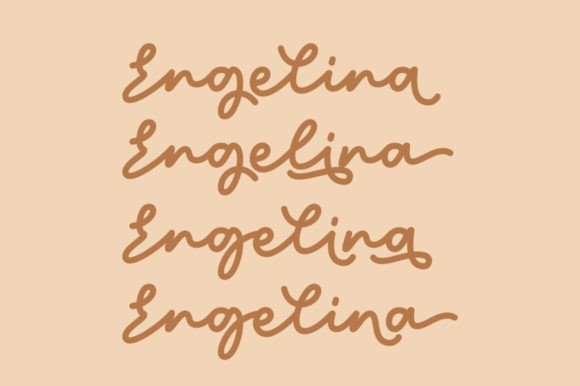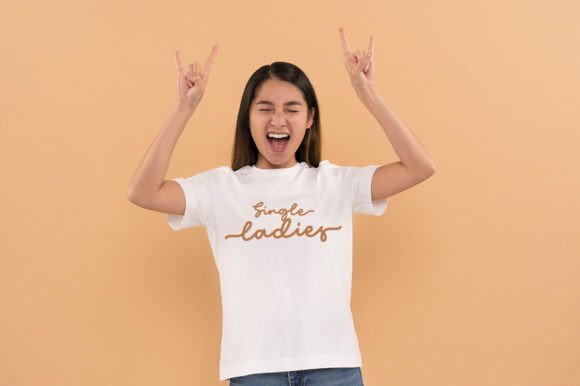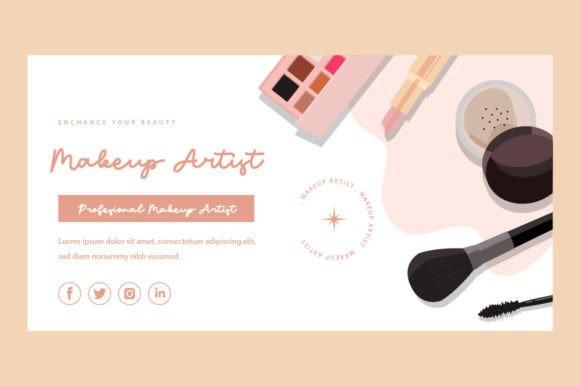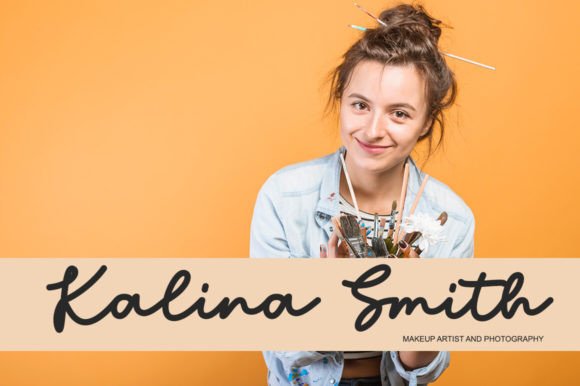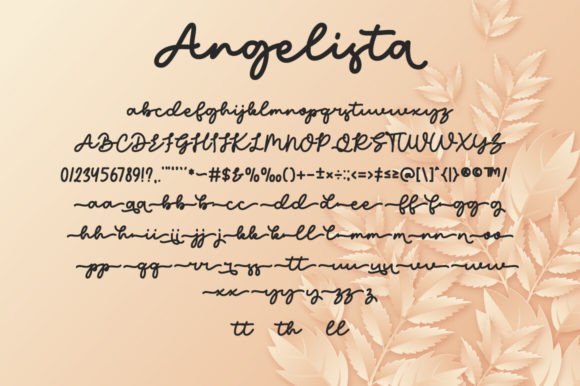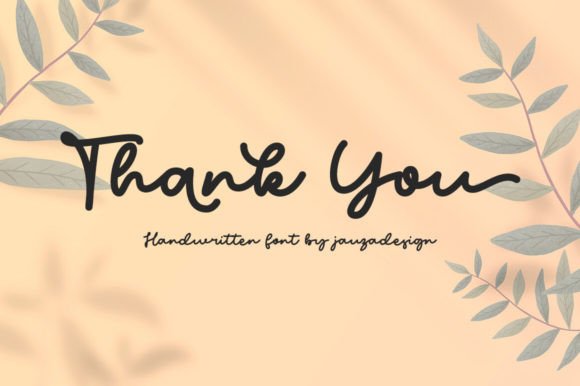
Unleashing the Charm of Angelista Font
There’s something magical about scribbling down ideas on a worn notebook, the pen gliding effortlessly across the page as creativity flows. It’s moments like these that remind us of the beauty of handwritten fonts, and Angelista Font is no exception. This delightful, friendly script is perfect for adding a personal touch to your designs.
Angelista Font is a versatile, natural, and unique handwritten font that’s tailor-made for a wide range of designs. Whether you’re working on style quotes, wedding cards, magazines, or fashion branding, Angelista’s charm is sure to captivate your audience. Its ease of use, thanks to PUA encoding, makes it a valuable asset for designers looking to add a touch of elegance to their work.
- Unique Characteristics: Angelista Font features elegant, cursive script with refined details and subtle flourishes, making it perfect for formal invitations, wedding stationery, and other high-end designs.
- Stylistic Sets: Angelista Font includes multiple stylistic sets, allowing designers to experiment with different styles and create unique, custom designs.
- The font’s elegant and refined design makes it perfect for luxury or high-end branding.
- The script style adds a touch of sophistication and can be used for wedding invitations, certificates, or other special occasions.
- The font is highly legible, making it easy to read even in smaller sizes.
- The font may be too ornate for some designs, making it difficult to read or use as a body text font.
- The script style can be challenging to use for long blocks of text, as it may become difficult to read.
- The font is not as versatile as some other script fonts, making it less suitable for everyday use.
Overall, I think the Angelista font is a beautiful addition to any designer’s toolkit. While it may have some limitations, it’s perfect for special occasions or luxury branding. With the right use case, this font can really shine and add a touch of elegance to your designs.
The Angelista Font is suitable for various applications, including:
- Logo design and branding
- Typography projects and creative endeavors
- Presentations, reports, and other documents
- Wedding invitations and